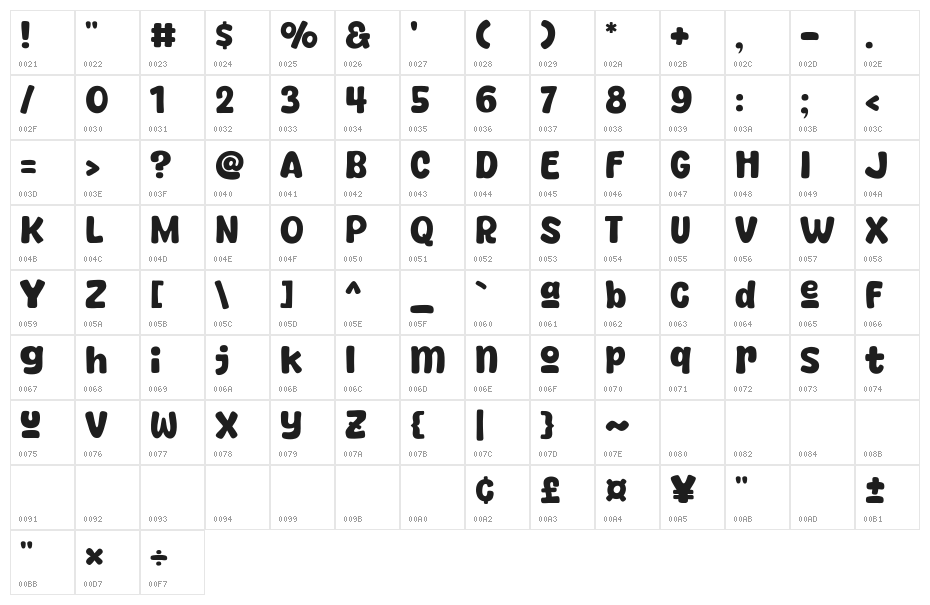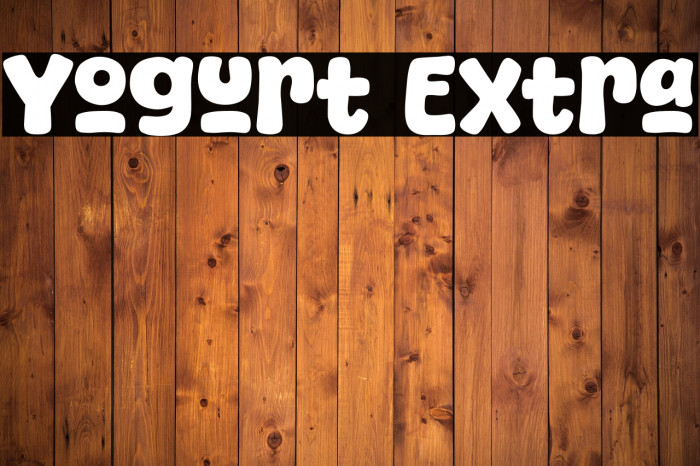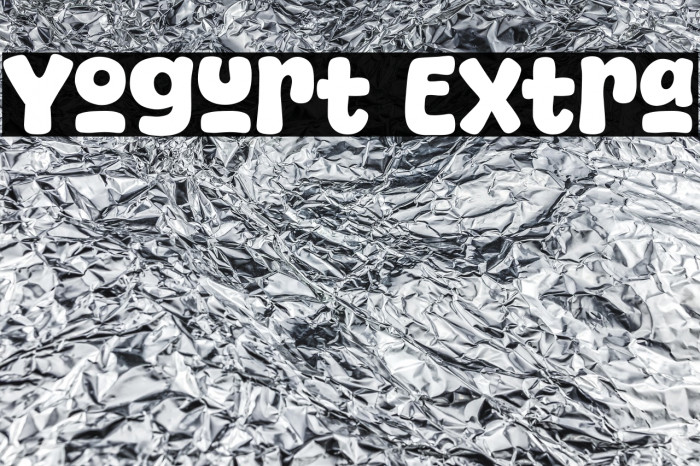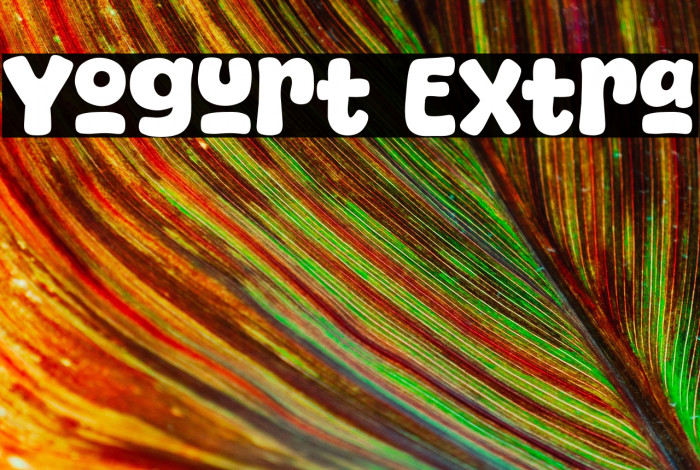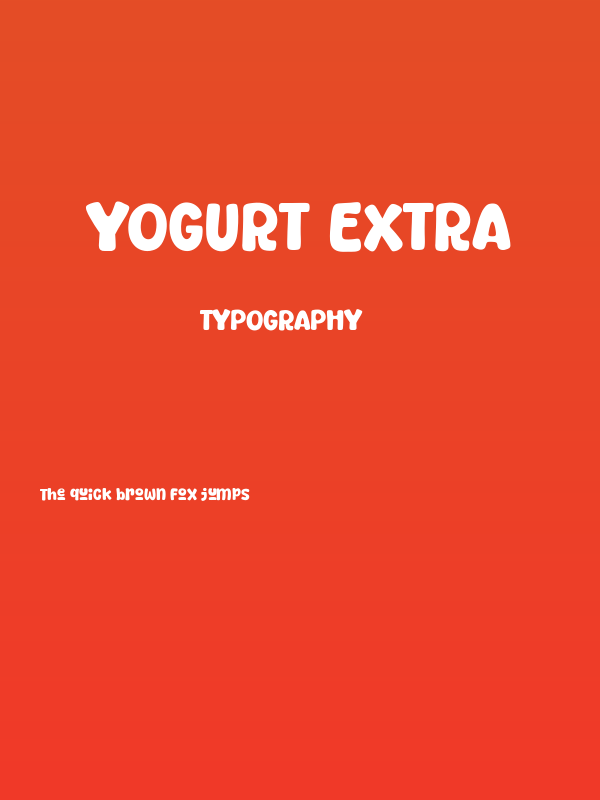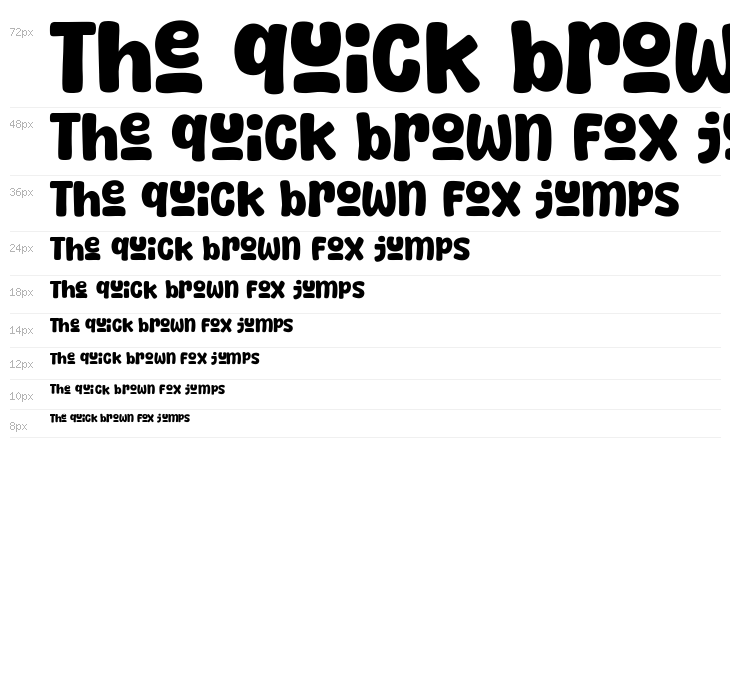
Yogurt Extra Font
Yogurt Extra Description
This playful and bold font features thick, rounded characters with a bubbly appearance. The letters are uniformly wide, creating a cohesive and friendly look. The uppercase and lowercase letters maintain a consistent style, with rounded edges and a slightly whimsical feel. Numbers and special characters follow the same design principles, ensuring a harmonious appearance across all elements. The font's thick strokes and rounded forms give it a strong presence, making it ideal for attention-grabbing designs. Its unique style is both modern and approachable, suitable for a variety of creative applications.
| Overall Style | Playful, Modern |
| Proposed Projects | Ideal for children's books, playful branding, product packaging, and eye-catching posters. |